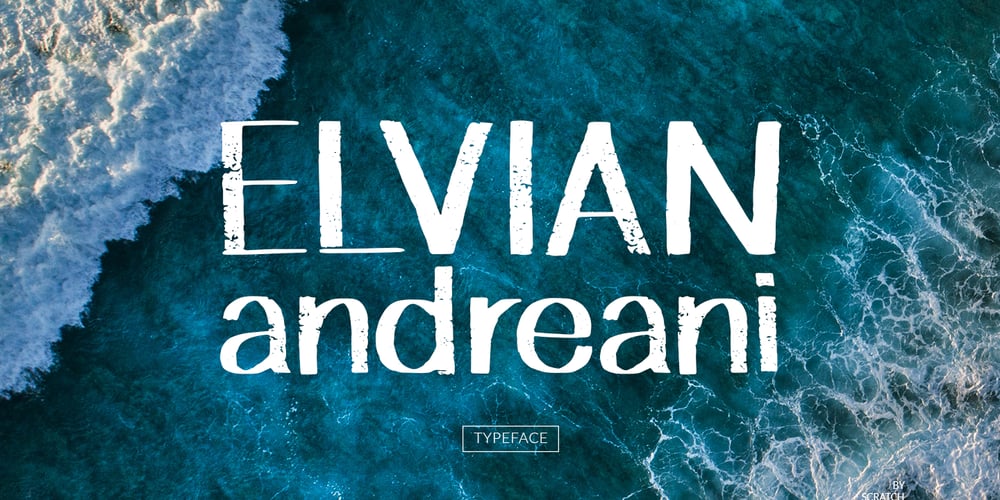
Elvian Andreani Font Family was designed by Gitayogi Irhandi and published by Scratch Design. Elvian Andreani contains 1 styles and family package options. Elvian Andreani is a handwritten font with board marker style, and an authentic texture and casual look and vintage style. This font is useful in various designs such as quotes, menus, logos, branding, clothing and other designs with casual or vintage concept. Elvian Andreani also includes support for multiple languages. Feature: – Uppercase & Lowercase – Numbers – Punctuation – Multilingual Support (ÀÁÂÃÄÅÇDÐEÈÉÊËIÌÍÎÏNÑOØÒÓÔÕÖUÙÜÚÛWYÝŸỲŸÆŒßÞþ) Support in Mac and Windows OS, Easy to install We hope you like it and thank you so much for purchase 🙂 Scratch Design